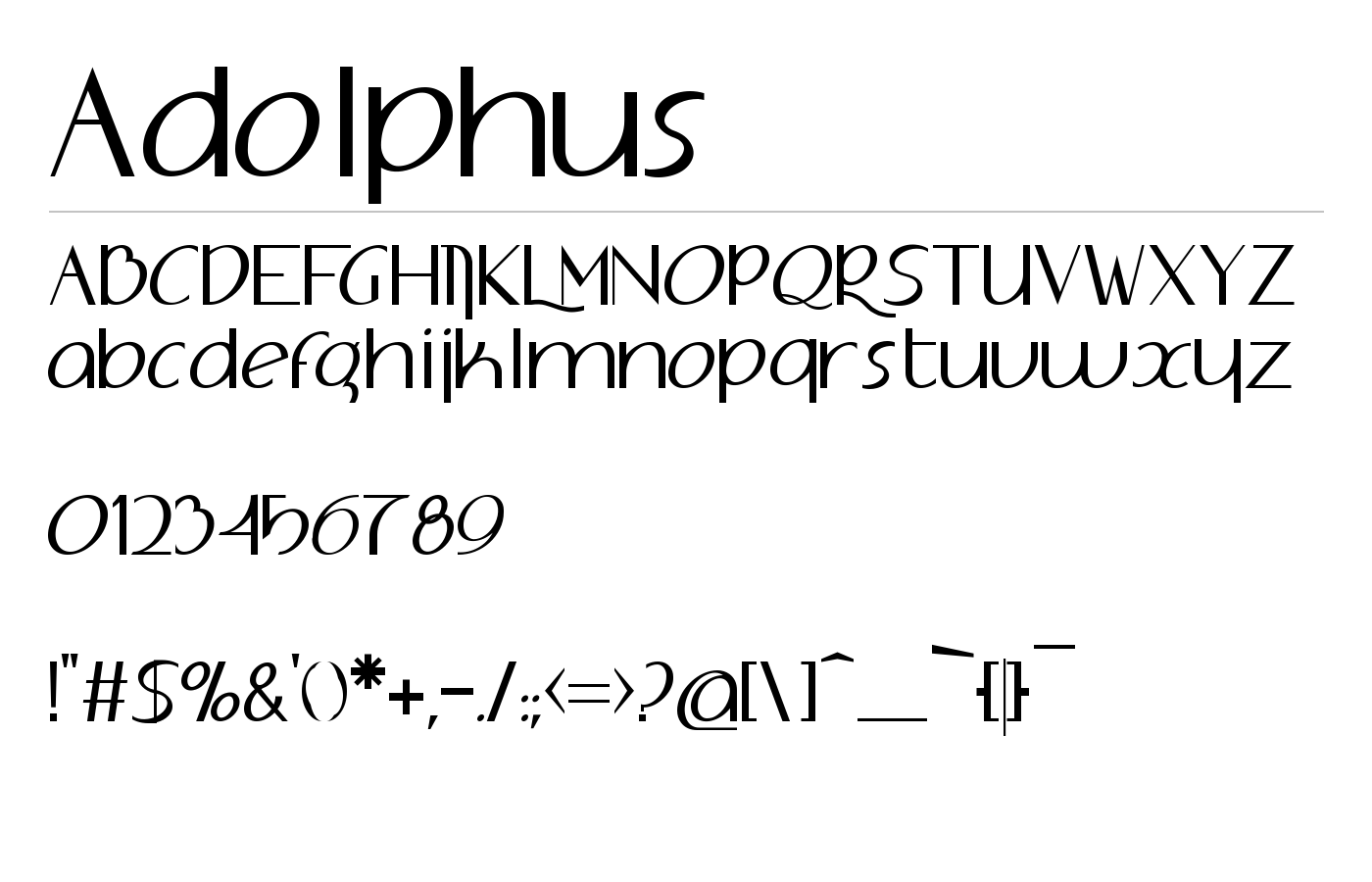
Adolphus is a distinctive serif typeface with a modern, elegant flair characterized by its high contrast between thick and thin strokes and unique, flowing letterforms. Its tall, slender proportions and refined curves make it ideal for luxury branding, editorial headlines, and sophisticated packaging where a stylish, artistic touch is desired. This font blends classic elegance with contemporary design, creating a memorable and graceful visual impact.
Adolphus Font
About Adolphus Font